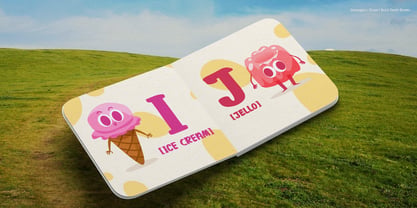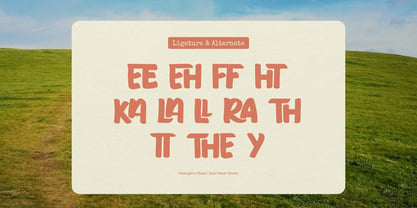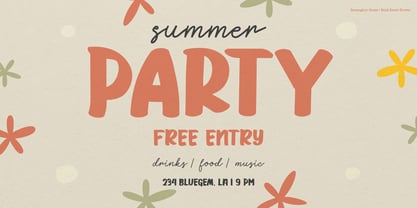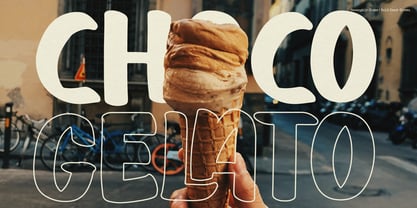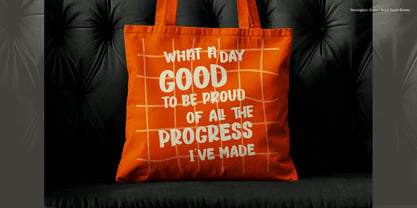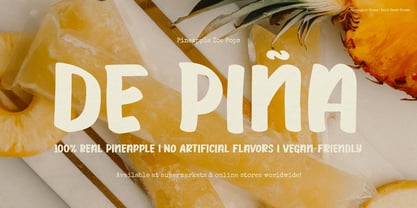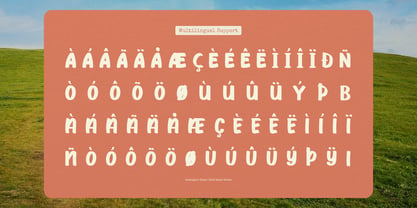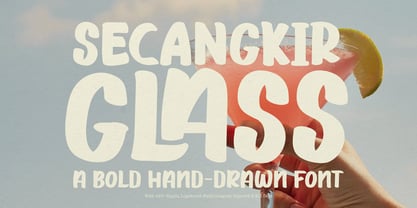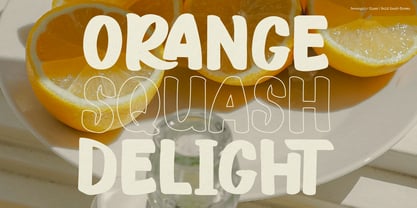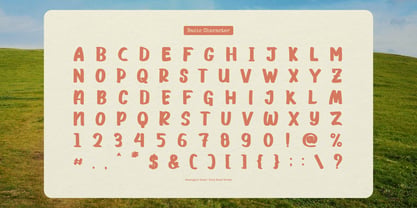
Secangkir Glass
The Secangkir Glass Font Family was designed by and published by Tini Fitriani. Secangkir Glass contains 2 styles and family package options. More about this family
Secangkir Glass | Bold Hand Drawn Font, from Gracetypestudio, suitable for any projects such as: logos, branding projects, homeware designs, product packaging, mugs, quotes, posters, shopping bags, t-shirts, book covers, name card, invitation cards, greeting cards, label, photography, watermark, special events, and all your other lovely projects that need a Bold Hand Drawn Font taste.
• Regular and Italic
• Standard glyphs
• Alternate and Ligature
• Fonts include multilingual support